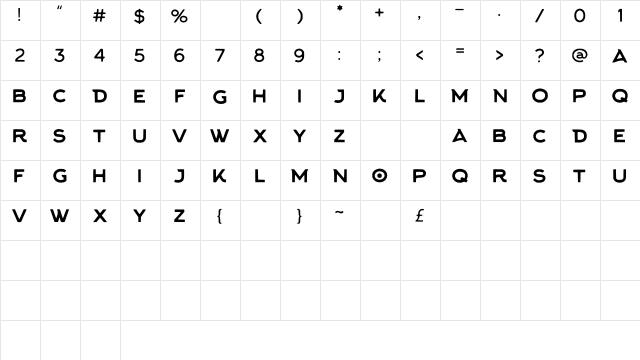
Jacked_Font Medium
Design Context for Jacked_Font Typeface
Jacked_Font takes a measured approach to typography — its balanced proportions and neutral character make it a reliable workhorse for both digital and print work.
Pro Tip: Use Jacked_Font in both headline and body roles to test its range before committing to a single application.